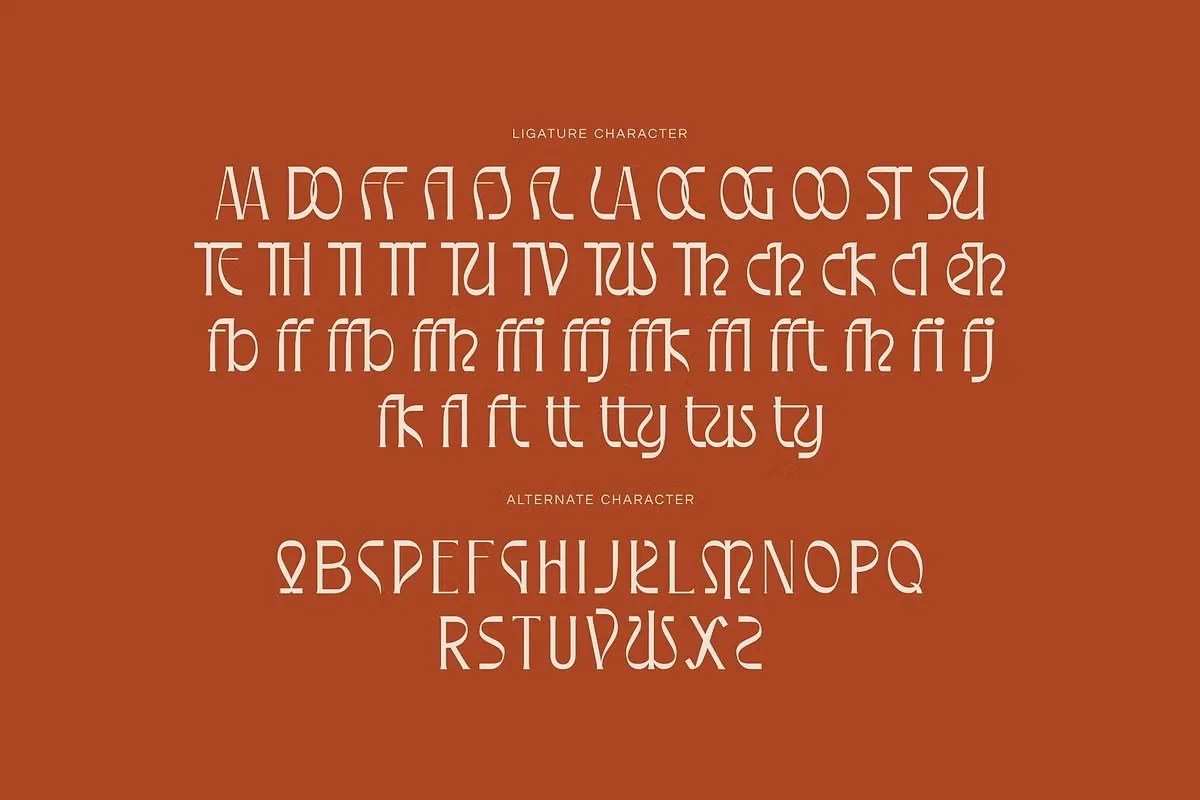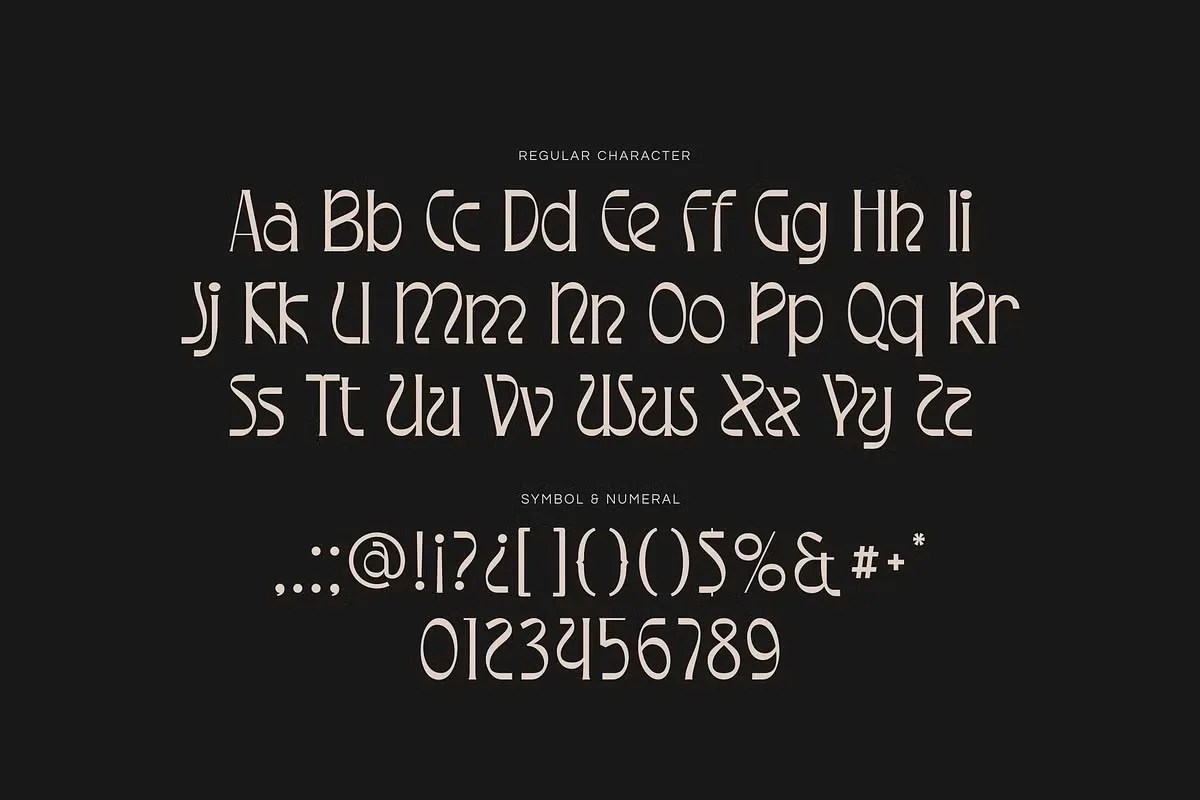
Exotisal by Imoodev is a refined serif font that blends classic elegance with modern sophistication. With its graceful letterforms, balanced proportions, and timeless aesthetic, this font is ideal for editorial design, branding, wedding invitations, fashion logos, and high-end packaging. Exotisal adds a touch of luxury and professionalism to any creative project.
• Elegant and refined serif typeface
• Perfect for editorial & magazine layouts
• Stylish for wedding invitations & stationery
• Great choice for luxury branding & logos
• Adds sophistication to fashion & beauty projects
• Balanced proportions for timeless readability
• Ideal for packaging & product design